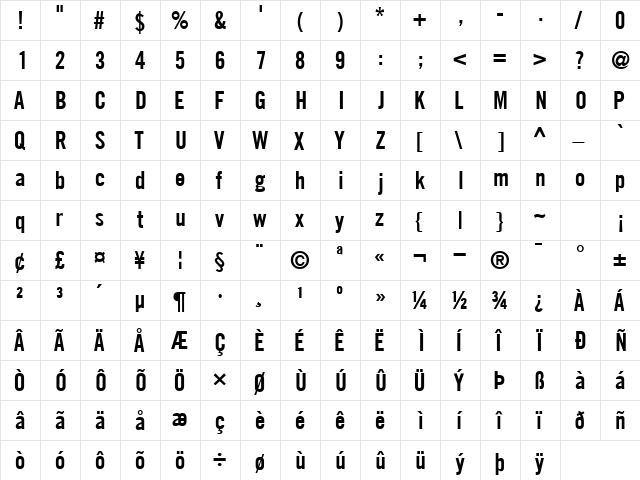
CommerceCondSSK Bold
Design Context for CommerceCondSSK Typeface
CommerceCondSSK is a composed and adaptable typeface that performs quietly and consistently across a wide range of design contexts. Its bold stroke weight gives it real presence on the page. The condensed width makes it efficient for tight spaces without sacrificing legibility.